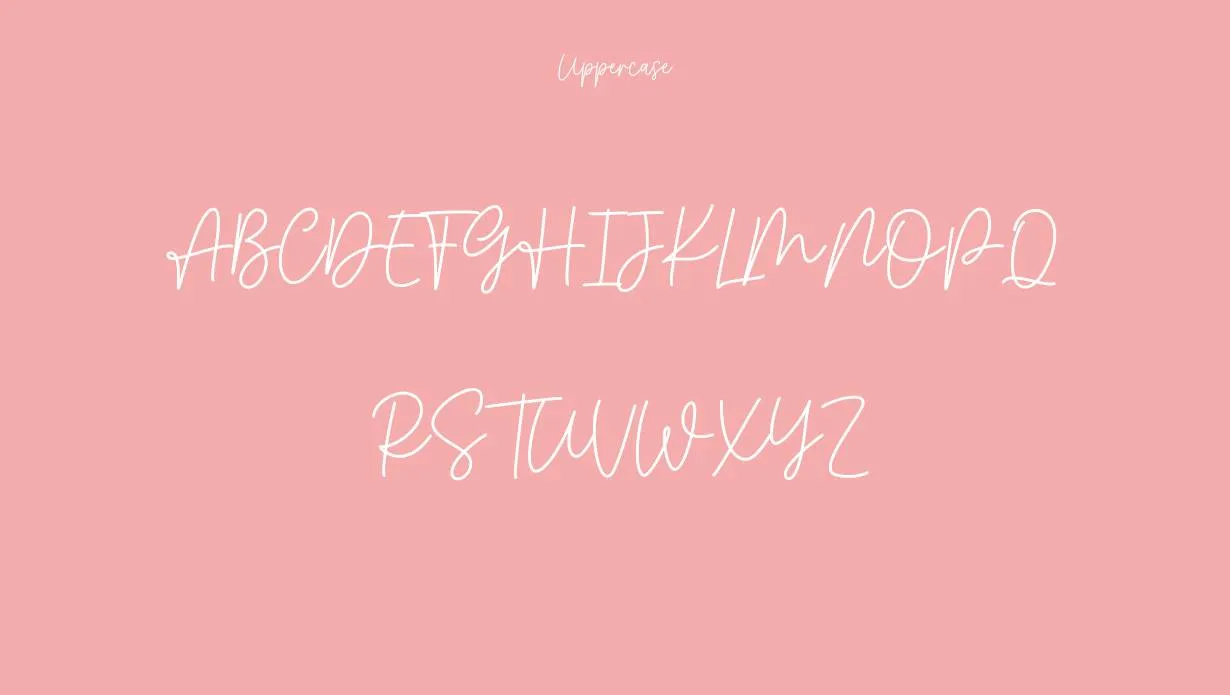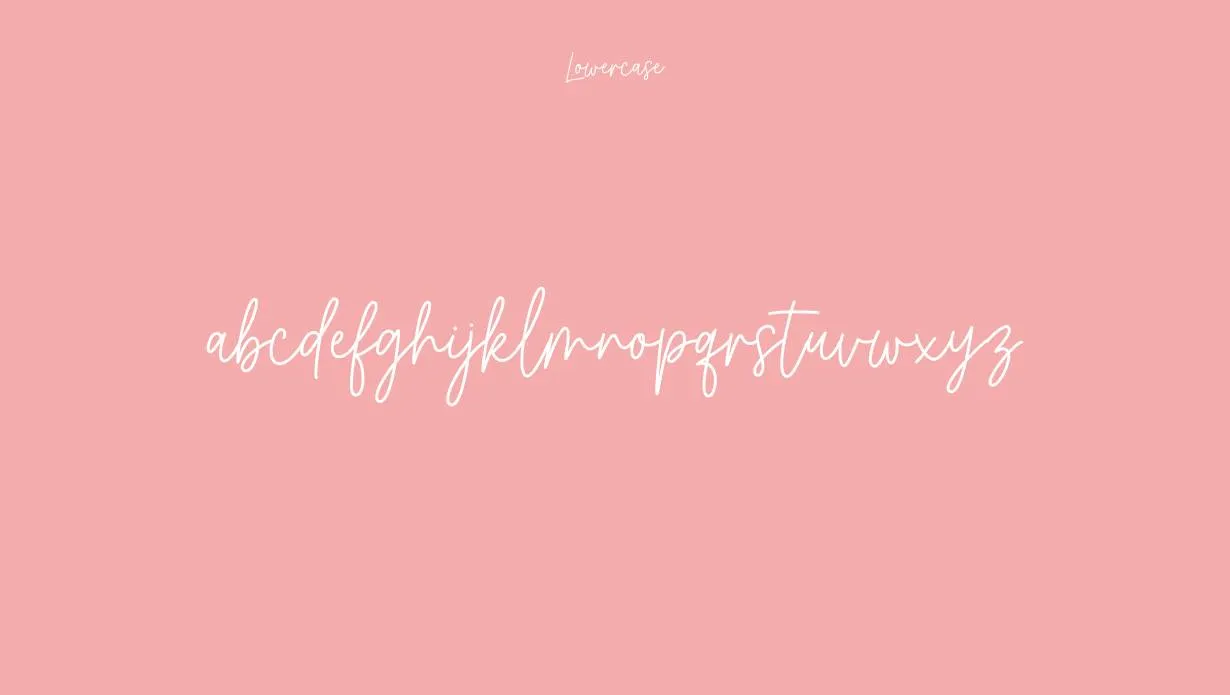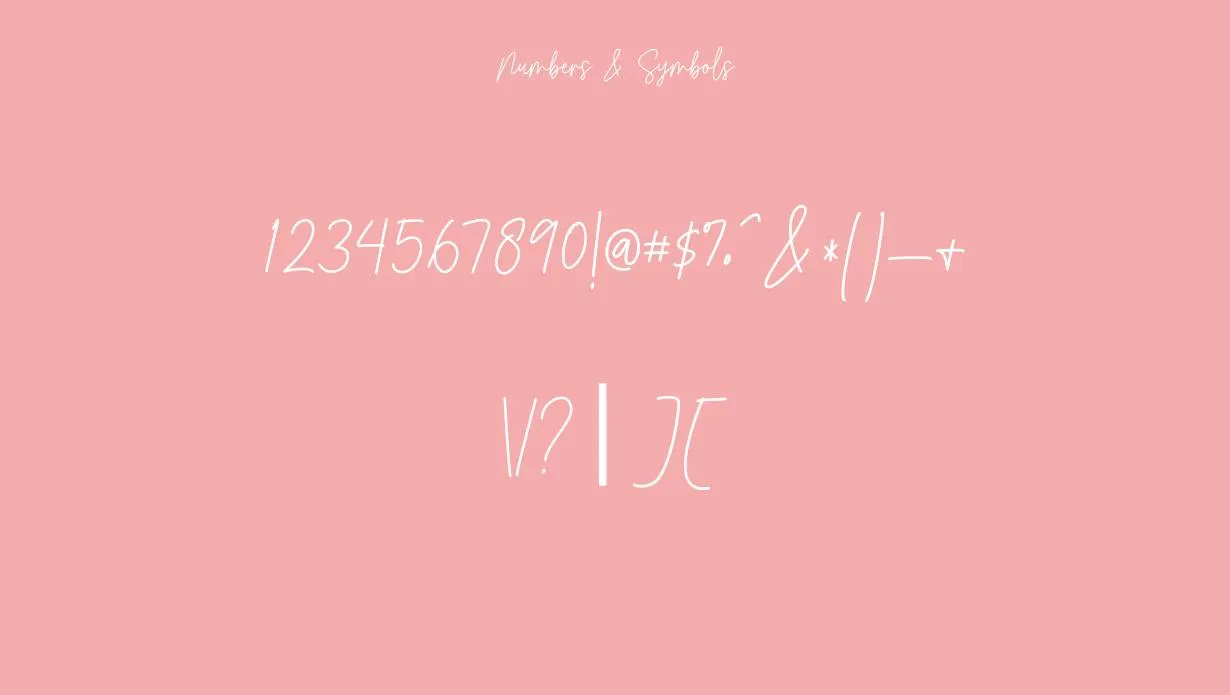
My Bestie Font is a handwritten font that was made by Sarah Rader and published by a well-known organisation TypeSETit in 2013. This font style comes in both TTF and OTF formats that can be used in all types of modern applications like macOS, Adobe, Figma, Windows, Photoshop, Canva, etc.
It also includes uppercase, lowercase, numbers, and some punctuation marks. It works well with crafty girls font and gives stunning results. You can use the My Bestie Font Generator tool to make beautiful text designs without going through the downloading process, just copy the formed text and paste it.
My Bestie Font Family